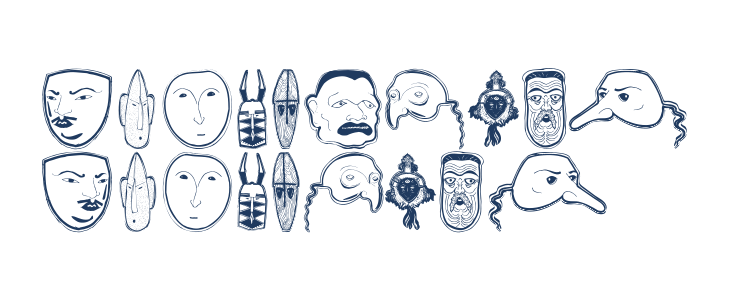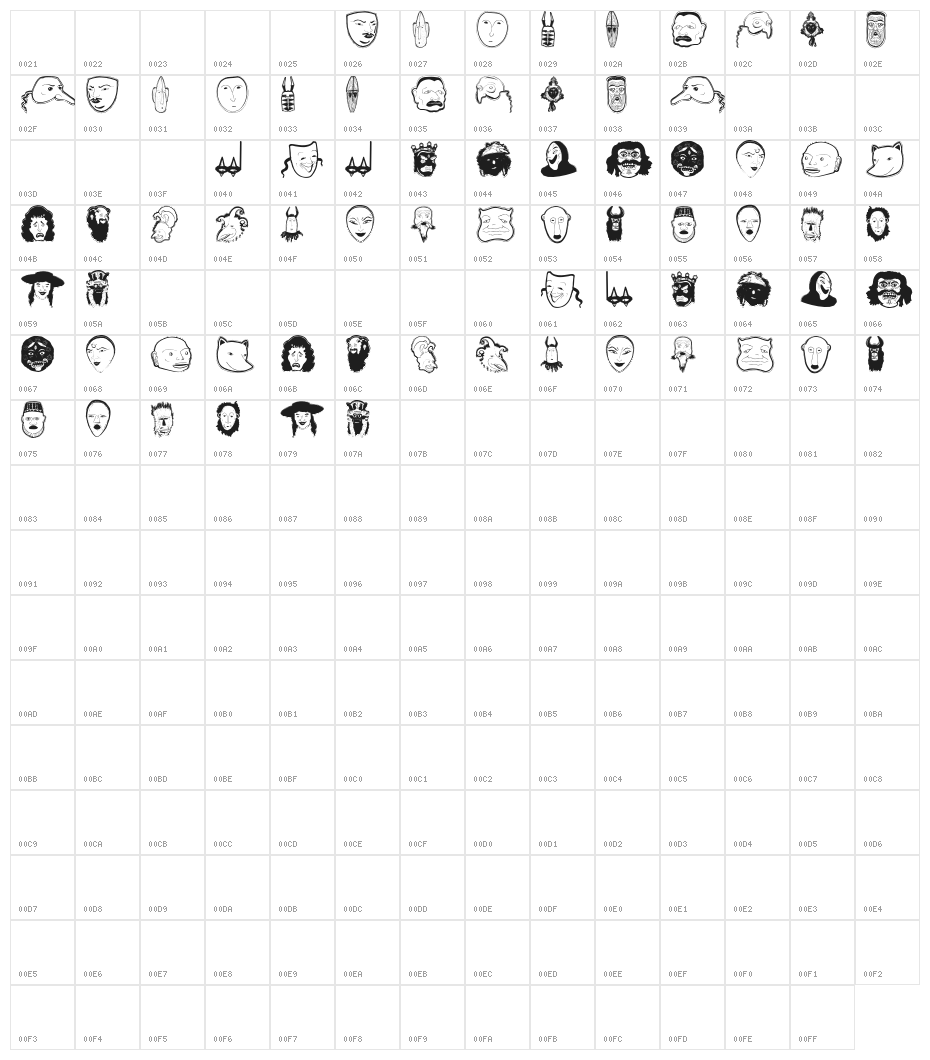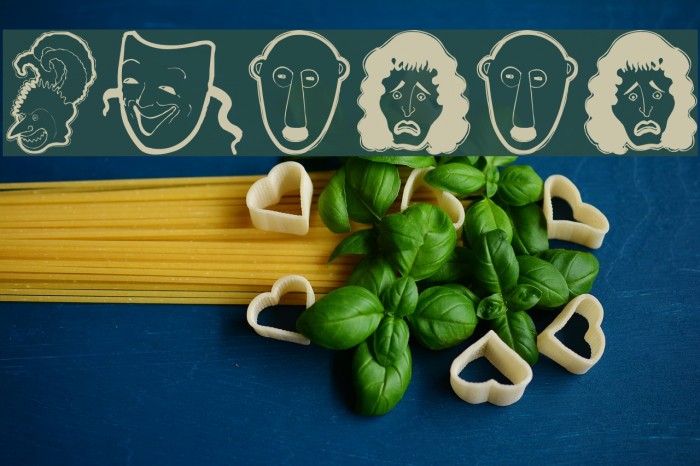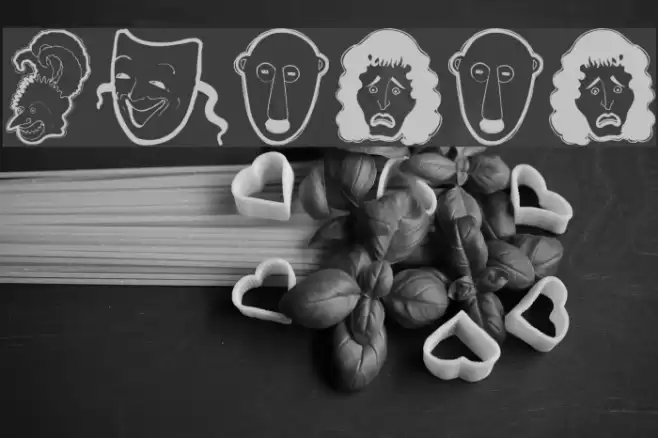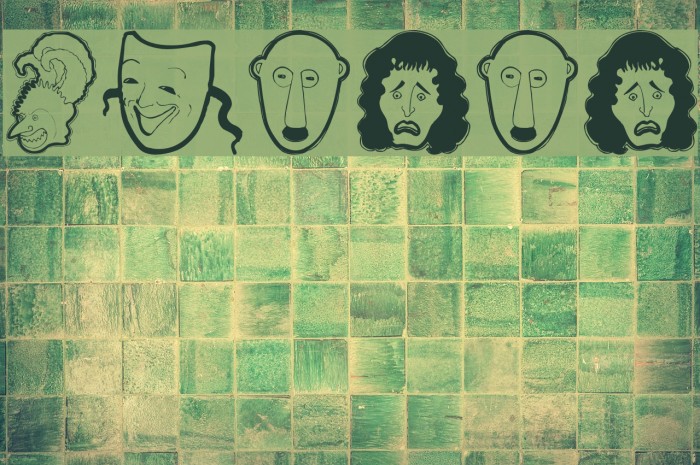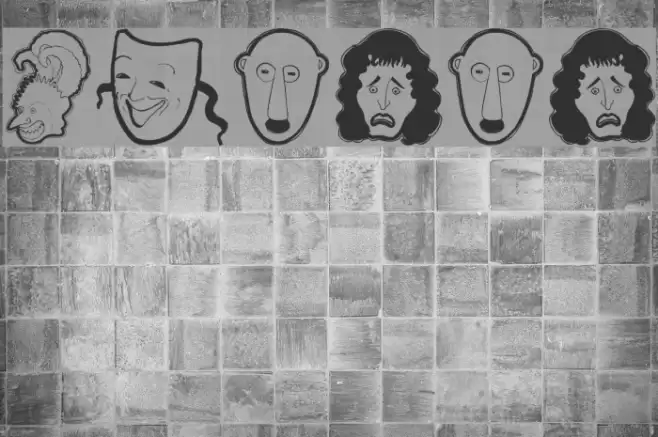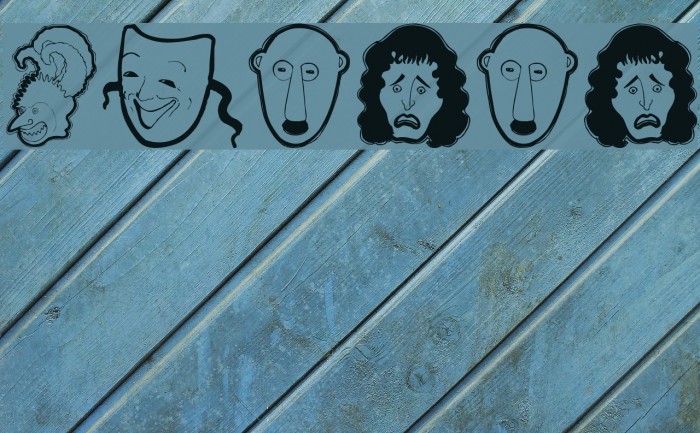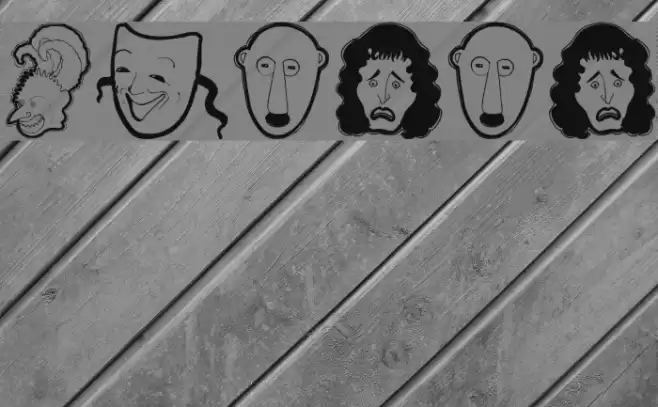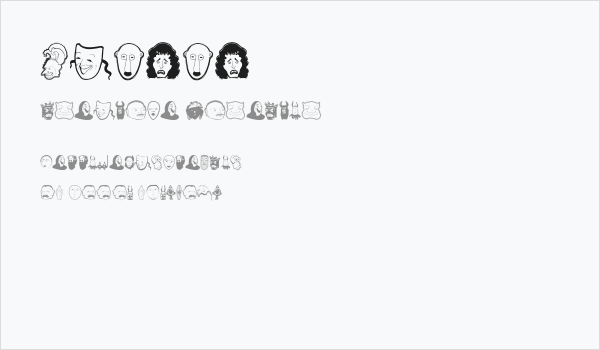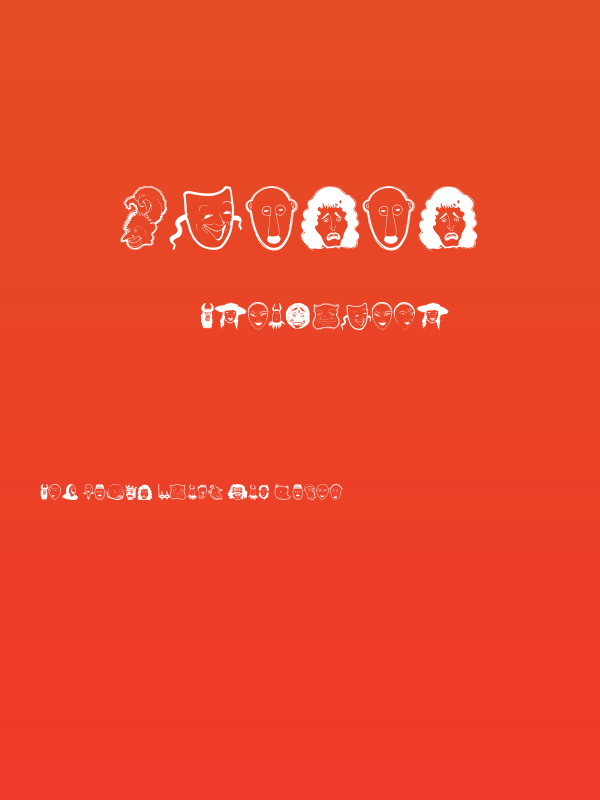
MasksK Font
MasksK Description
A decorative display font composed entirely of various illustrated theatrical, tribal, and cultural masks, each character represented by a unique mask drawing with bold outlines and intricate details.
| Overall Style | Decorative, Artistic, Theatrical |
| Use Case | Headlines, Posters, Themed Graphics |
| Proposed Projects | Themed event posters, Halloween invitations, theater programs, cultural festival branding, artistic book covers. |